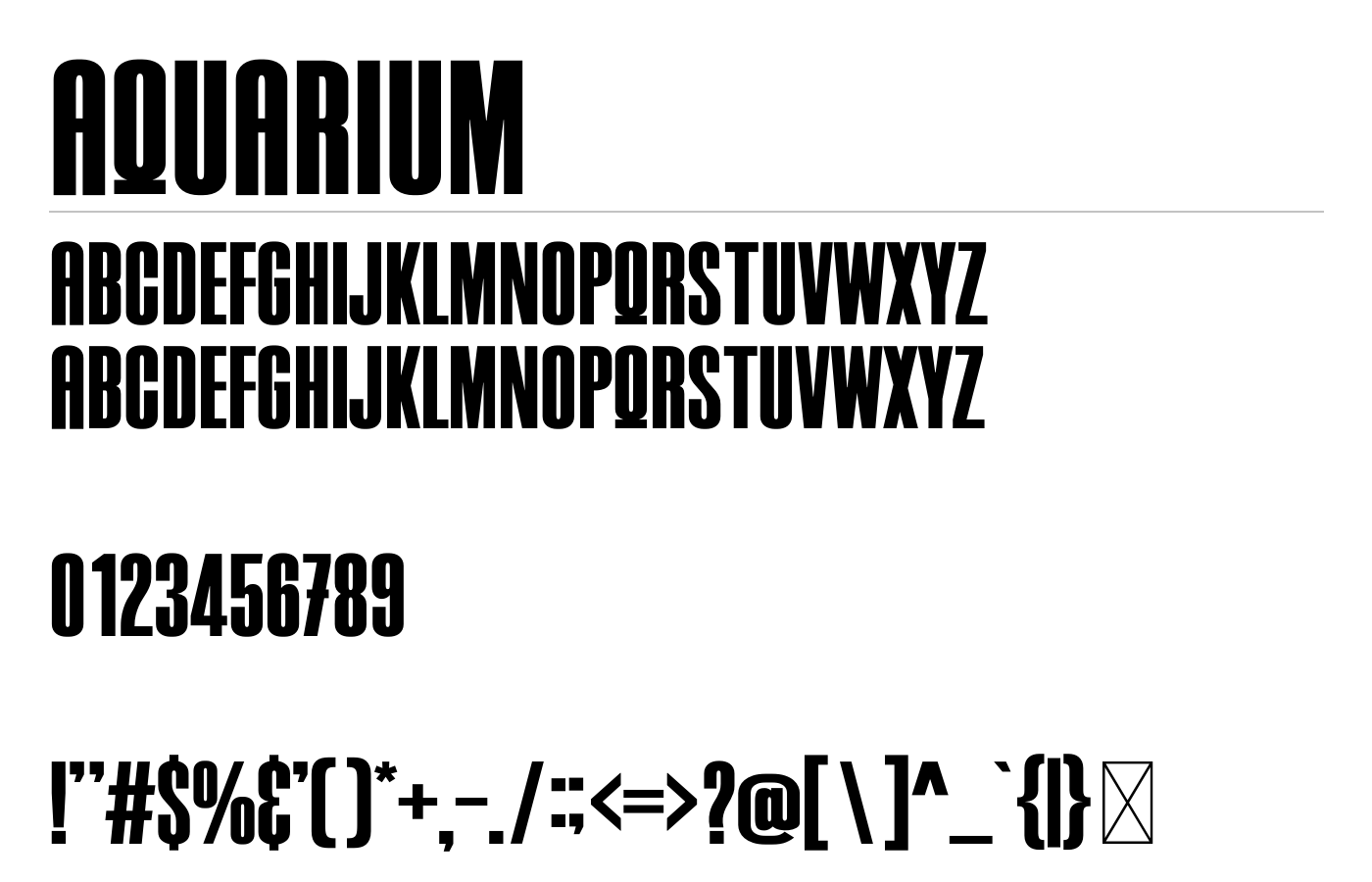
AQUARIUM is a bold, condensed sans serif font characterized by its tall, narrow letterforms and uniform stroke weight, creating a striking and modern look. Its clean, geometric shapes and high x-height give it strong presence and excellent impact, making it ideal for headlines, logos, and display use where space is limited but boldness is key. This font conveys confidence and contemporary style, perfect for branding and advertising that demands attention.
AQUARIUM Font
About AQUARIUM Font